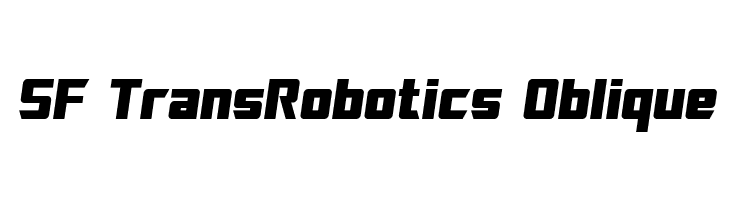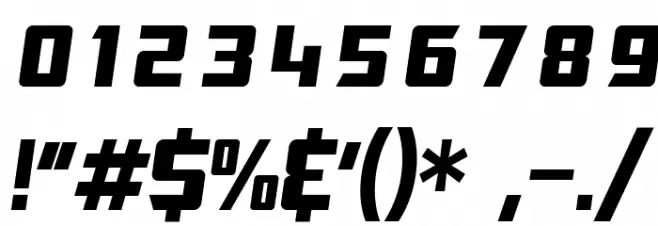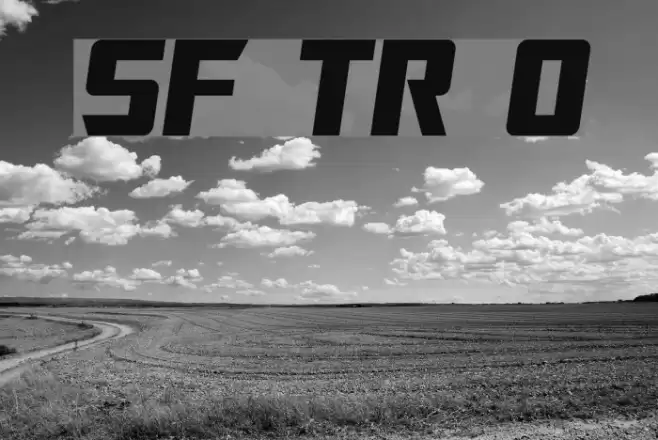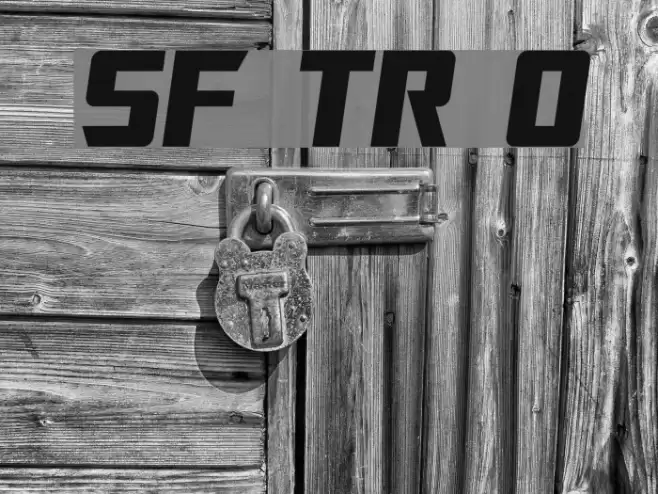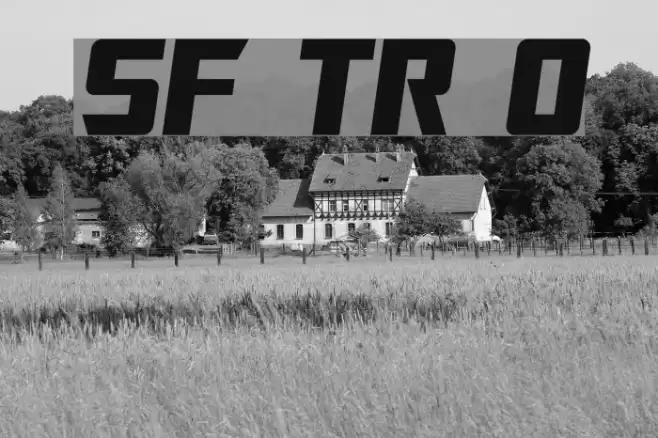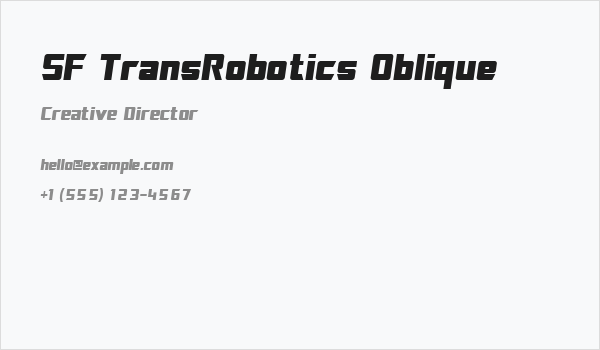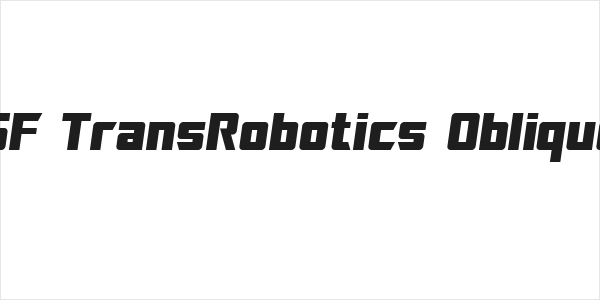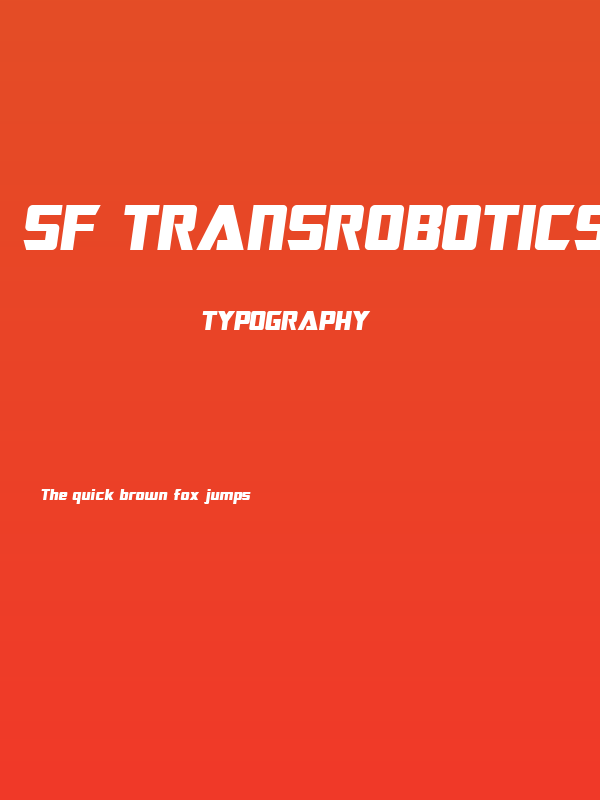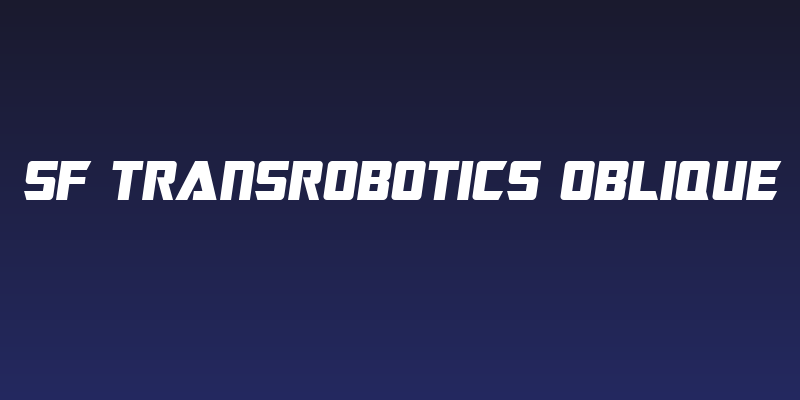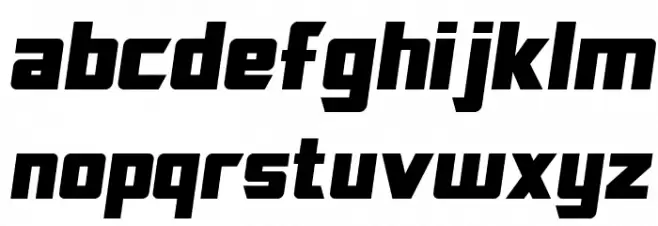
SF TransRobotics Oblique Font
SF TransRobotics Oblique Description
This font features a bold, futuristic design with a distinct oblique slant, giving it a dynamic and forward-moving appearance. The characters are constructed with sharp angles and clean lines, creating a sense of precision and modernity. The uppercase and lowercase letters maintain a consistent style, with the lowercase offering a slightly more compact form. Numerals are equally bold and angular, ensuring readability and consistency across different uses. Special characters are designed to match the overall aesthetic, providing a cohesive look. The font's strong geometric shapes and slanted orientation make it ideal for projects that require a modern, tech-inspired feel.